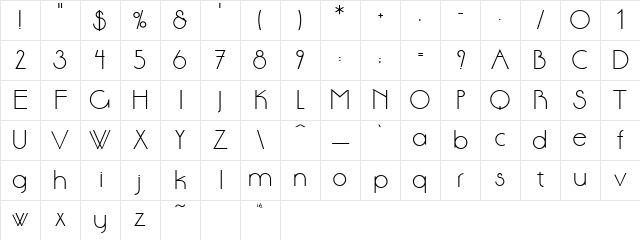
Anson Normal Free Font
Anson Normal
Design Context for Anson
Anson is a composed and adaptable typeface that performs quietly and consistently across a wide range of design contexts.